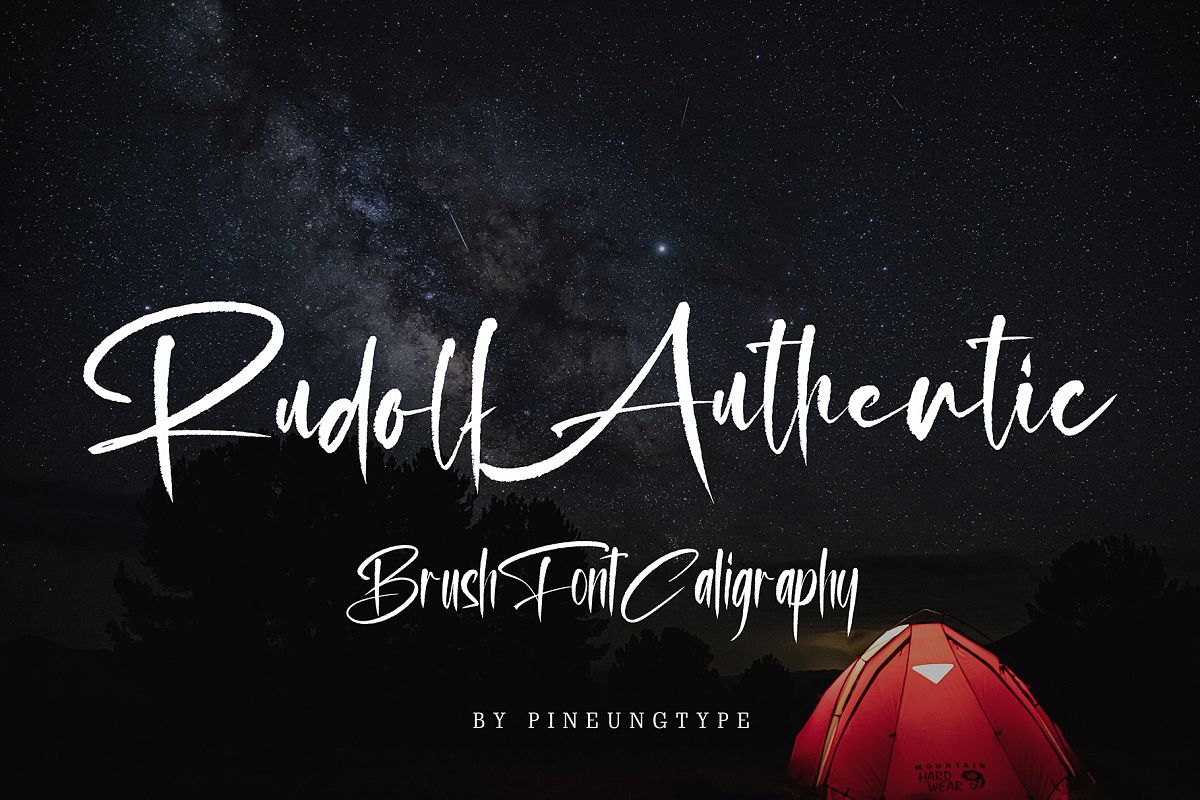
Rudolf Authentic
Rudolf Authentic brush script font font with new style, this font will perfect for many different project ex: quotes, logo, blog header, poster, banding, fashion, apparel, letter, invitation, stationery, etc...